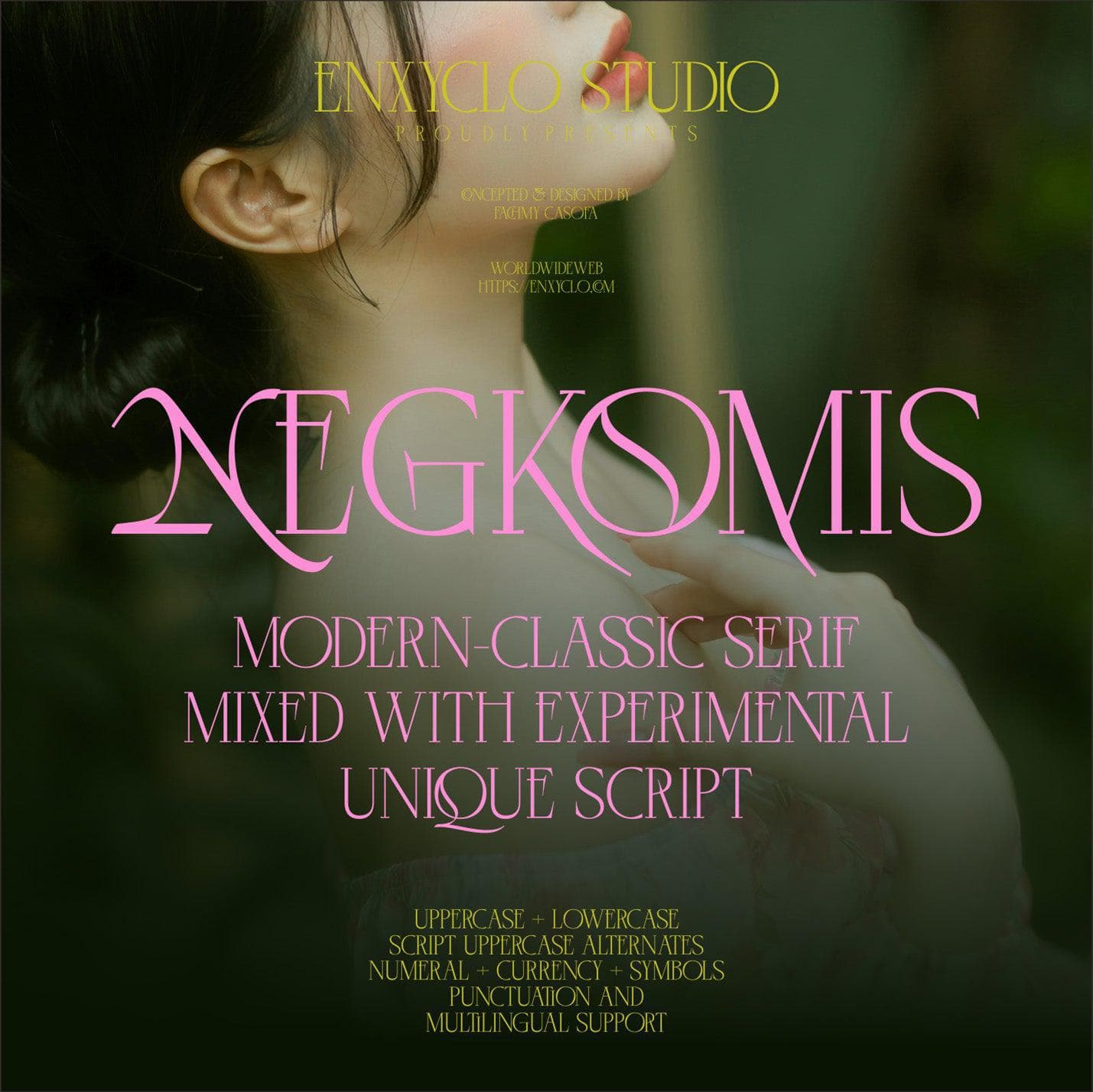
<p><strong>Negkomis </strong>is a modern-classic timeless and elegant branding serif font mixed with experimental uppercase script. This font is designed with great care. It is a beautiful serif type with sharp and precise angles, paired with an experimental script for its uppercase characters. All of this is crafted to give the font a modern-classic feel while maintaining elegance, making it perfect for stunning graphic needs. It also features various ligatures for both uppercase and lowercase letters, presented with a concept that is truly beautiful and captivating. This typeface embodies a classic and nostalgic feel while incorporating modern elements. With its elegant curves and unique variations, this font is perfectly suited for any creative project. It was purposely crafted to be used in large point sizes, although it doesn’t lose its magic in small point sizes. It is perfect for headline, digital ads, magazines, website, poster, branding, and logos. No matter the topic, this font will be an incredible asset to your fonts’ library, as it has the potential to elevate any creation. With this beautiful font, absolutely you can make your project stand out from the rest.</p><ul><li><p>319 Glyphs</p></li><li><p>Alternates</p></li><li><p>43 Ligature</p></li><li><p>Stylistic Set 1-2</p></li><li><p>9 Ornaments</p></li><li><p>Uppercase & Lowercase</p></li><li><p>Numeral, Punctuation & Symbols</p></li><li><p>Multilingual Support</p></li></ul><p></p>